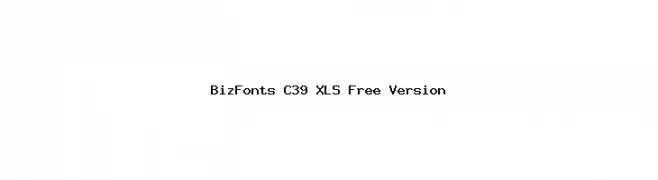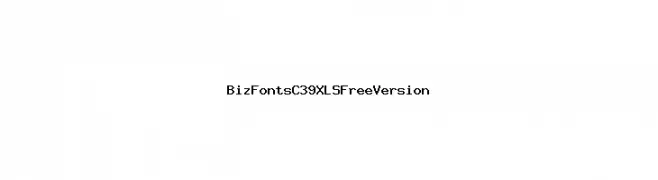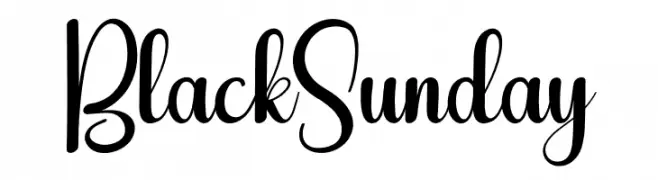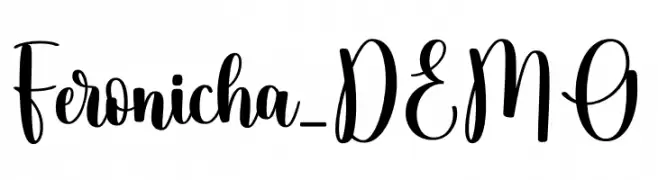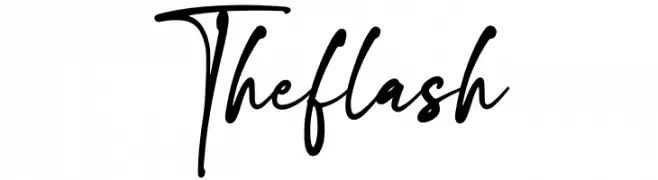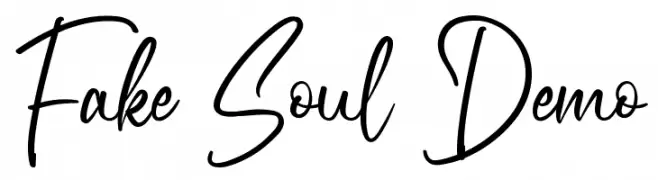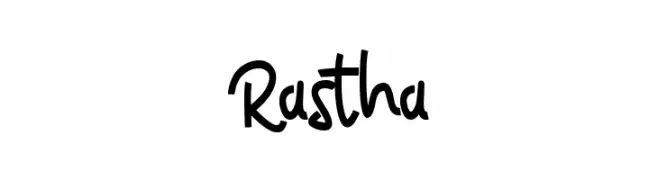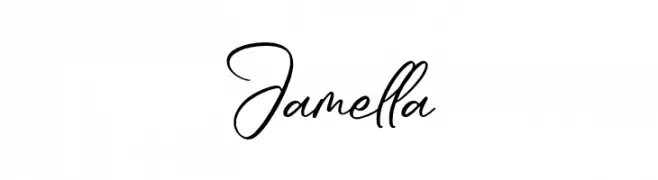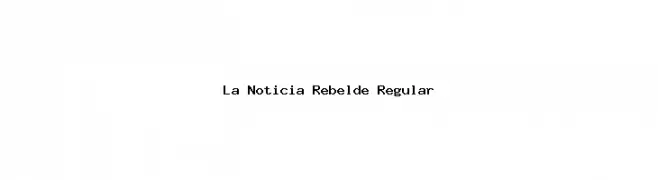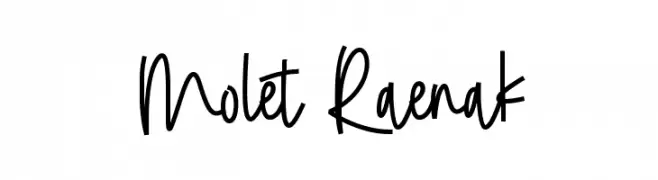
( Excel Barcode Font by BizFonts.com )
Monospaced, barcode-inspired geometric font with high legibility.
( Excel Barcode Font by BizFonts.com )
Monospaced, barcode-style geometric font with thick strokes.
( Fonts by Scratchones )
Expressive, high-contrast decorative script with tall, narrow forms.
( Fonts by Fillo Graphic )
Casual handwritten sans-serif with rounded, playful forms.
( Fonts by Makashi )
Bold, modern script with playful, handwritten strokes.
( Fonts by NJ Studio )
Expressive, handwritten script with tall, narrow forms and energetic strokes.
( Fonts by VinType )
A lively handwritten script with tall, narrow, and fluid letterforms.
( Fonts by Kwancasakya )
Casual handwritten script with lively, irregular strokes.
( Fonts by Integritype Studio )
Handwritten script with elegant, flowing lines and high contrast.
( LA NOTICIA REBELDE )
A bold, playful display font with hand-crafted, irregular forms.
( Fonts by Lettersweet Studio )
Casual handwritten script with tall, narrow forms and decorative swashes.
( Fonts by wep )
Expressive, bold script with a handwritten brush style.
( Fonts by ONG Type )
Casual handwritten script with tall, narrow, and playful letterforms.
( Fonts by Mozatype )
Energetic, handwritten script with tall, narrow forms and expressive strokes.
( Fonts by NihStudio )
Expressive handwritten script with tall, narrow, and fluid letterforms.
( Fonts by Perspectype Studio )
Casual handwritten font with playful, irregular shapes.
( Fonts by Insan Nurbahagia )
Expressive, tall handwritten script with thin, dynamic strokes.
( Fonts by Inermedia Studio )
A whimsical, handwritten script font with playful loops and bold lowercase forms.
( Fonts by Scratchones )
Casual handwritten font with playful, rounded strokes.
( Fonts by Neiwman Ace )
Light, handwritten script with elegant loops and tall ascenders.
( Fonts by Redy Studio )
Handwritten script font with elegant, flowing strokes.
( Fonts by Letterena Studios )
A playful, handwritten font with tall, narrow, and irregular strokes.
( Fonts by PremiereGraphics )
Handwritten cursive script with elegant, fluid strokes.
( Fonts by Paily Studio )
Casual handwritten script with playful, natural strokes.
( Fonts by Andika )
Bold, playful handwritten font with organic, irregular strokes.
( Fonts by UI Creative )
Elegant, handwritten script with a signature-like style.
( Fonts by Scratchones )
Modern, playful script with high contrast and decorative swashes.
( Fonts by MJType )
Casual handwritten font with rounded, playful strokes.
( Fonts by Essentials Studio )
Casual handwritten script with rounded, playful forms.
( Fonts by Din Studio )
A lively handwritten script with a casual, flowing style.
( Fonts by Gassstype )
Expressive, bold handwritten script with dynamic strokes.
( Fonts by Gassstype )
Expressive, bold handwritten script with brush-like strokes.
( Fonts by Maulana Creative )
Elegant handwritten script with fluid, connected strokes.
( Fonts by Letterhend Studio )
A refined, calligraphic script with elegant, flowing lines.